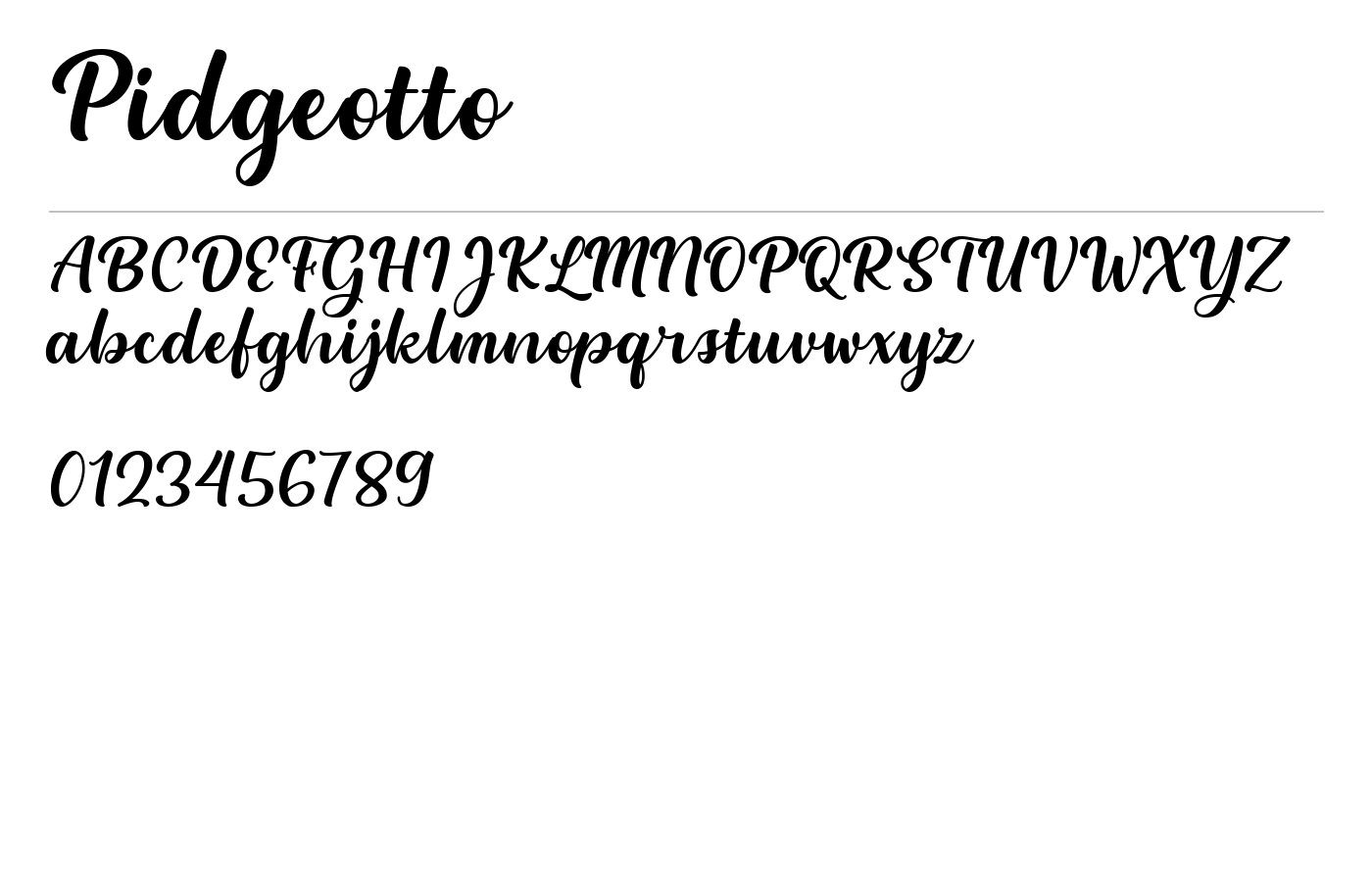
Pidgeotto is a flowing script font characterized by its smooth, rounded strokes and moderate contrast that create a warm, friendly feel. Its elegant, yet approachable style makes it perfect for invitations, branding, and packaging where a personal, handcrafted touch is desired. With its clear legibility and charming curves, Pidgeotto works beautifully in headlines or short text that aims to evoke creativity and warmth.
Pidgeotto Font
About Pidgeotto Font
| Font family | Pidgeotto Font |
| Designer | Tezar Tantular |